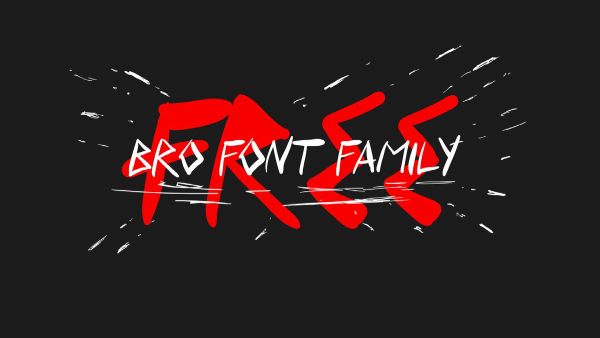
BRO Font
BRO font by Colorama Studio is a free handdrawn calligraphy font family with an expressive, loosely gestural character — its letterforms carrying the warmth and spontaneity of hand-lettering with enough structural control to work across a broad range of creative applications. Bold and graphic in its visual weight, it lends itself naturally to title cards, lyric videos, editorial headlines, poster design, and any context where the typography needs to feel like it came from a human hand rather than a software package. Available free for personal use.